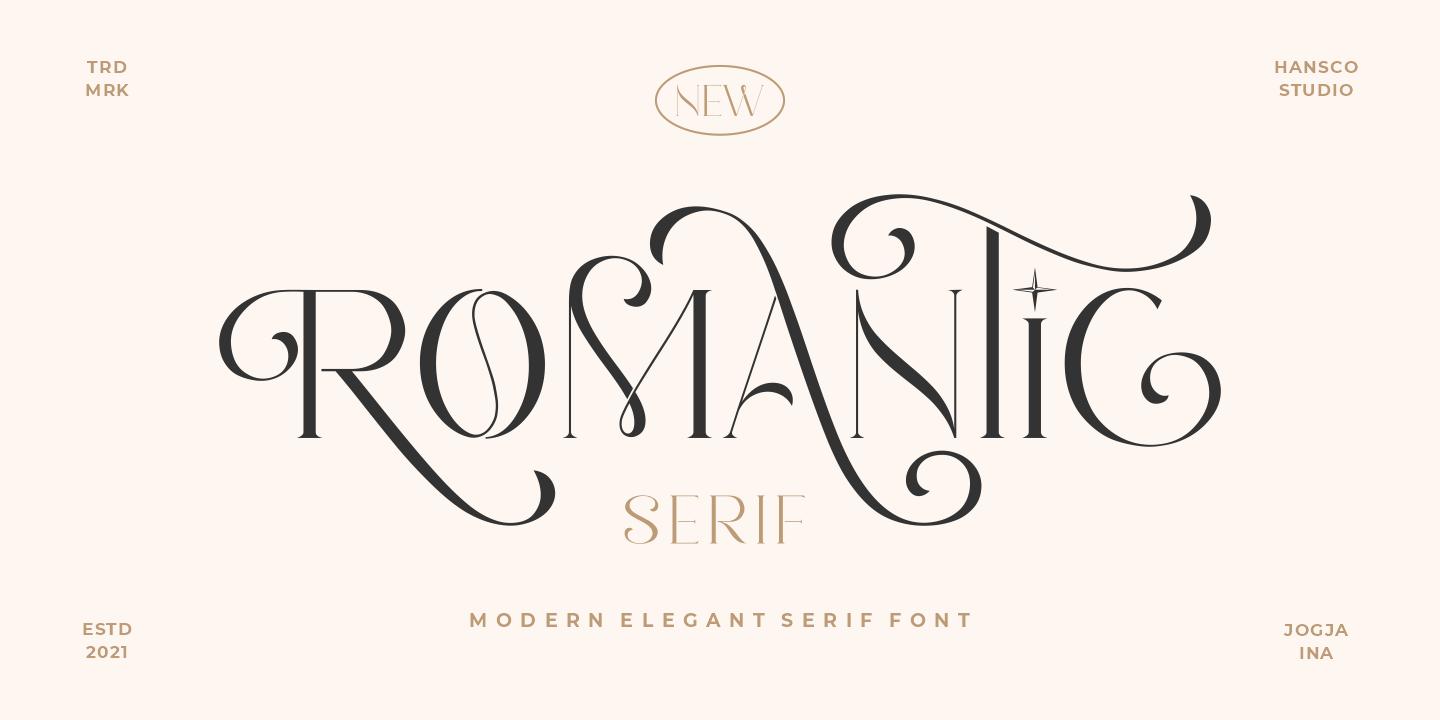
The Romantic Serif Font is incredibly versatile, making it an exquisite choice for a wide array of design projects that aim to evoke elegance, timeless beauty, and a touch of heartfelt emotion. Imagine it gracing luxurious wedding invitations, adding a sophisticated flair to high-end fashion branding, or bringing a classic, refined feel to editorial layouts for lifestyle magazines. It's also fantastic for creating beautiful greeting cards, enhancing product packaging for premium goods, and designing captivating literary covers or historical documents. Its inherent grace and polished appearance make it perfect for any project striving to communicate romance, tradition, and an enduring sense of quality.
What makes Romantic Serif Font so exciting is its unique ability to combine classic serif structures with a delicate, often slightly decorative touch. It often features elegant curves, refined serifs, and sometimes subtle swashes that give it an air of sophistication and charm. This font doesn't just present text; it whispers tales of beauty and classic artistry, making your message feel truly special and deeply personal. Its balance of readability and intricate detail ensures that your designs are not only clear but also imbued with an undeniable sense of grace. It's a typeface that brings an atmosphere of refined elegance and emotional depth to your typography, guaranteeing your projects leave a memorable and enchanting impression.
The Romantic Serif Font family typically includes a range of weights and stylistic alternatives to provide extensive creative flexibility. While specific options can differ, you can generally expect to find alternatives like Regular, Bold, and potentially an Italic or a set of decorative alternates with ligatures. These different weights and stylistic sets allow you to create dynamic visual hierarchies and add nuanced artistic flair to your typography, ensuring a cohesive and beautifully crafted design. This comprehensive family support ensures that whether you need a strong, elegant headline or a subtle, romantic body text, Romantic Serif Font Free Download offers the perfect elements to bring your sophisticated vision to life.